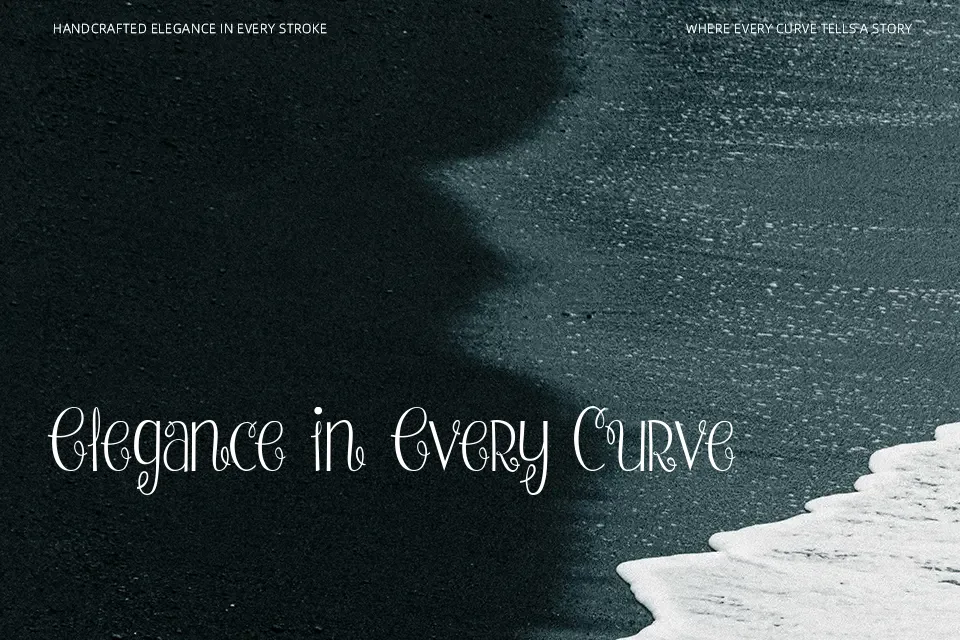
Strawberry Whipped Cream Font
Strawberry Whipped Cream Font uses connected, looping script forms with pronounced curls, rounded turns, and a lively handwritten rhythm. The letterforms appear relatively narrow and vertically oriented, while the sweeping terminals make individual words feel decorative rather than neutral. Its flowing strokes and close visual connections work best in larger display settings, such as invitation titles, product labels, or short social-media phrases. The typeface has enough personality for a focal line, but the elaborate forms can slow recognition in small sizes or extended copy. It is most effective when given generous space and kept to short text.
Best For: wedding invitation headings,feminine product packaging,social media quotes,beauty label titles
Perfect for headline, invitation, and packaging, with a creative and decorative style.